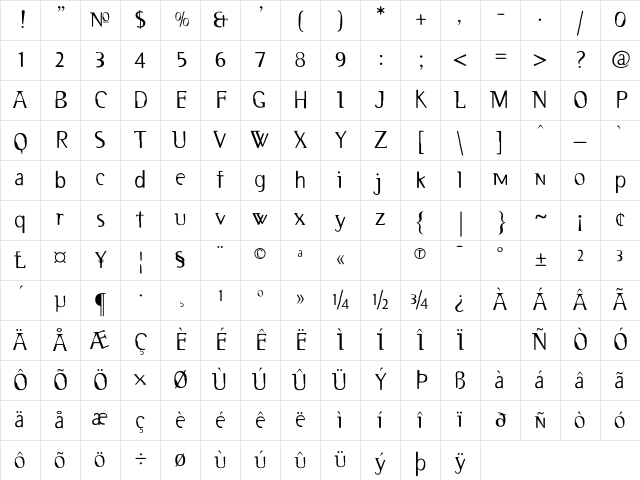
2RebelsDeux Regular
Design Context for 2RebelsDeux
2RebelsDeux is a composed and adaptable typeface that performs quietly and consistently across a wide range of design contexts.